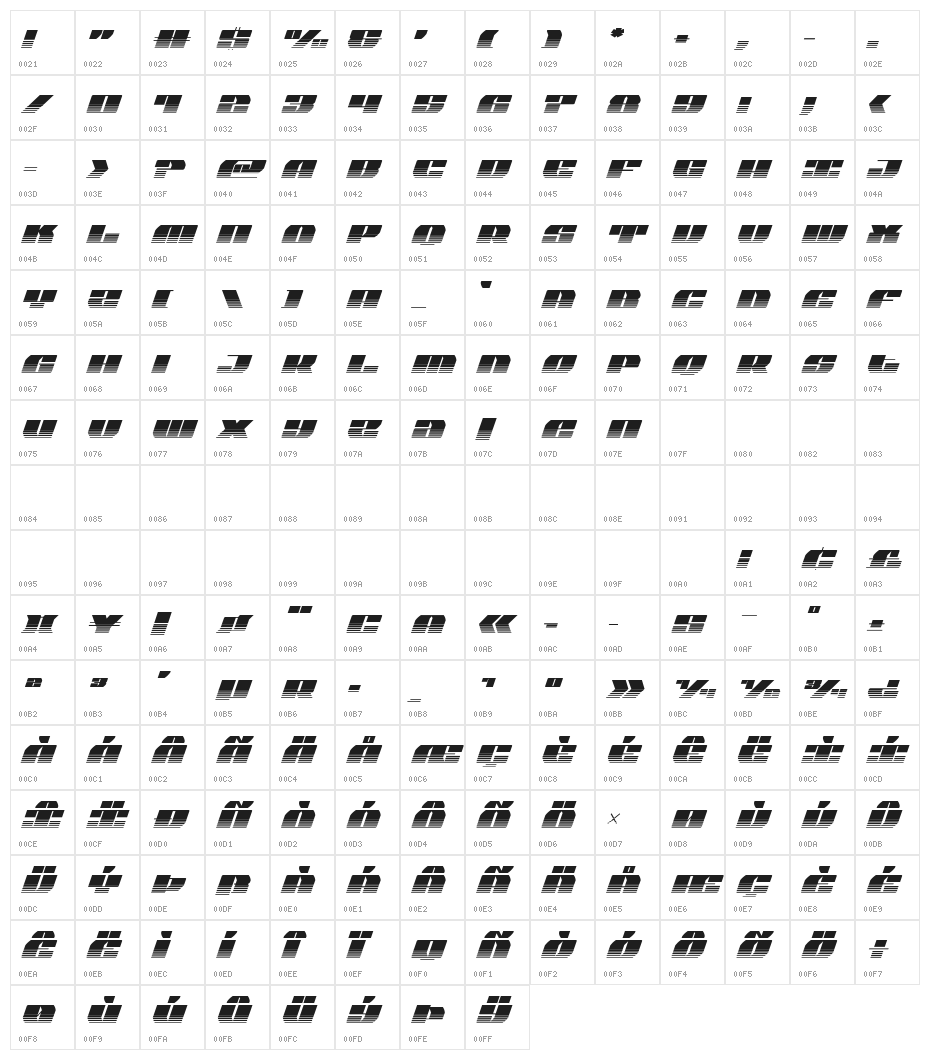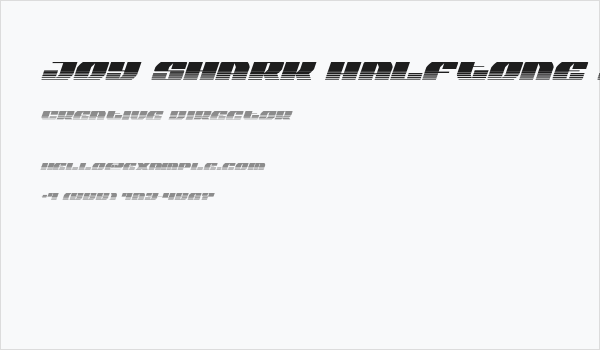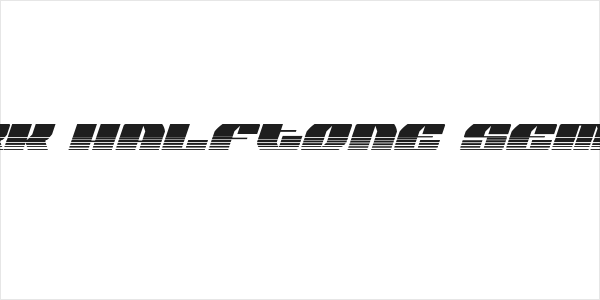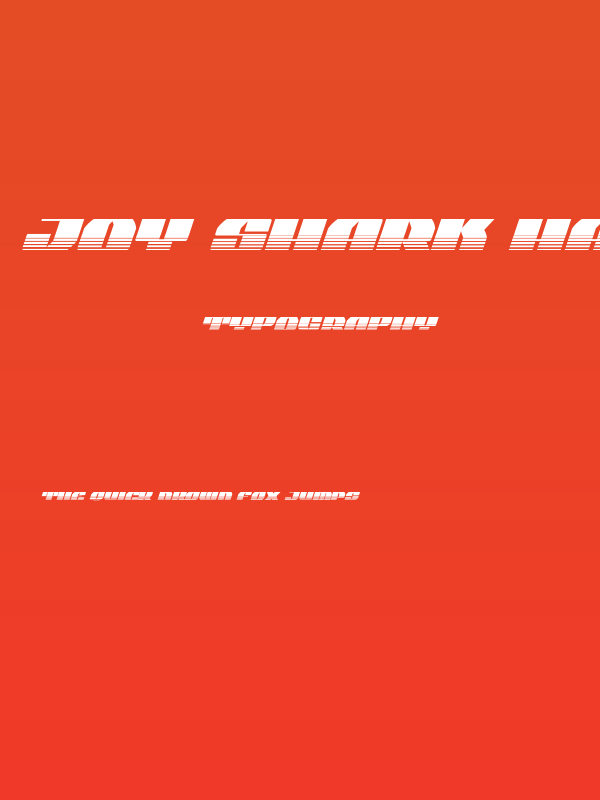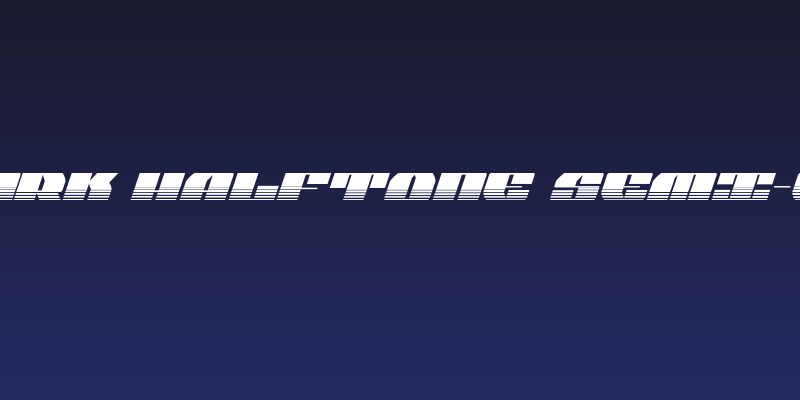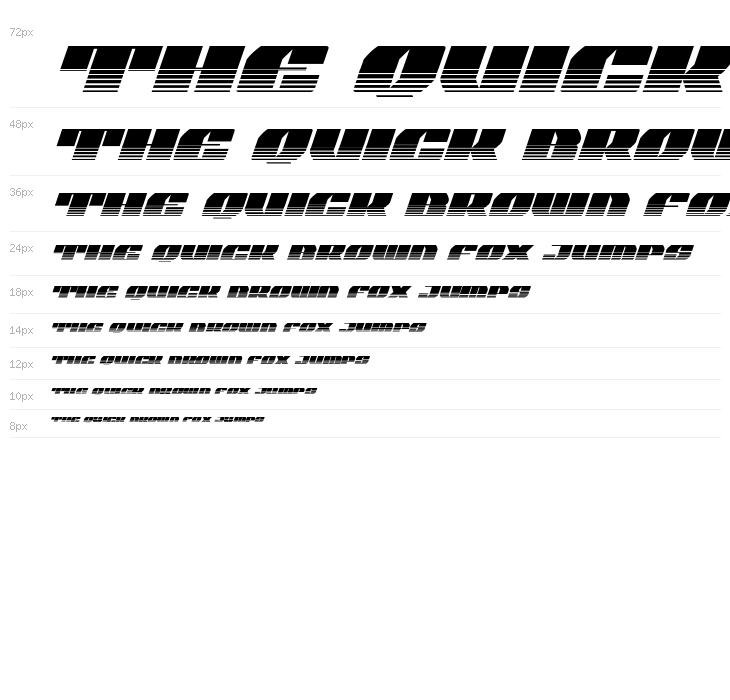
Joy Shark Halftone Semi-ConIta Font
Joy Shark Halftone Semi-ConIta Description
This font features a dynamic and bold design with a halftone effect that creates a sense of movement and energy. The characters are constructed with horizontal lines that give a unique, striped appearance, adding a modern and futuristic touch. The uppercase and lowercase letters maintain a consistent style, with sharp angles and a slightly condensed form. The numbers and special characters follow the same design principles, ensuring uniformity across all glyphs. This font's distinctive style makes it suitable for projects that require a strong visual impact.